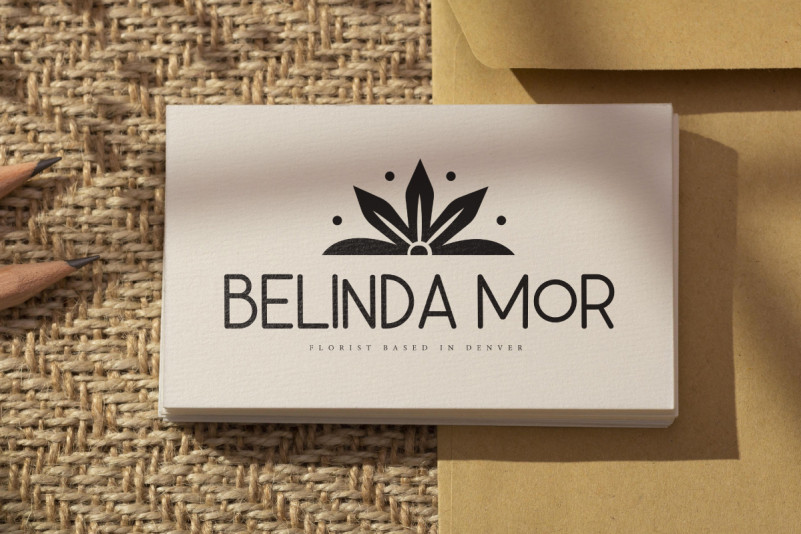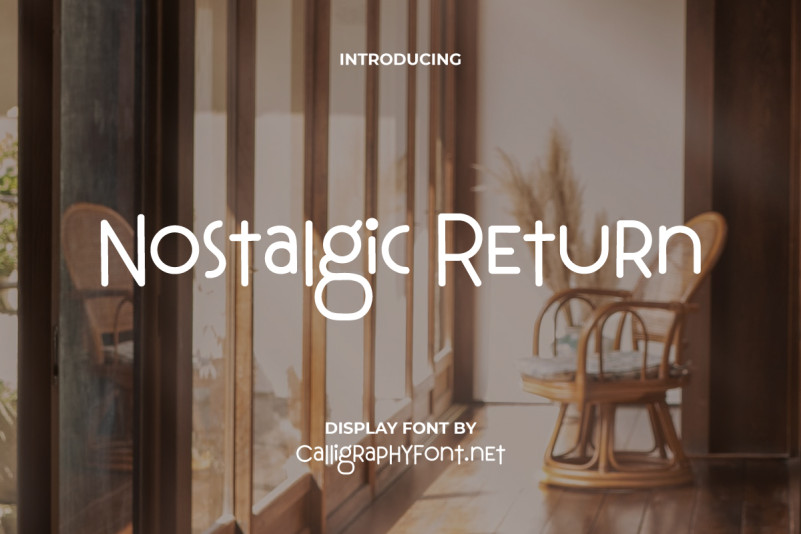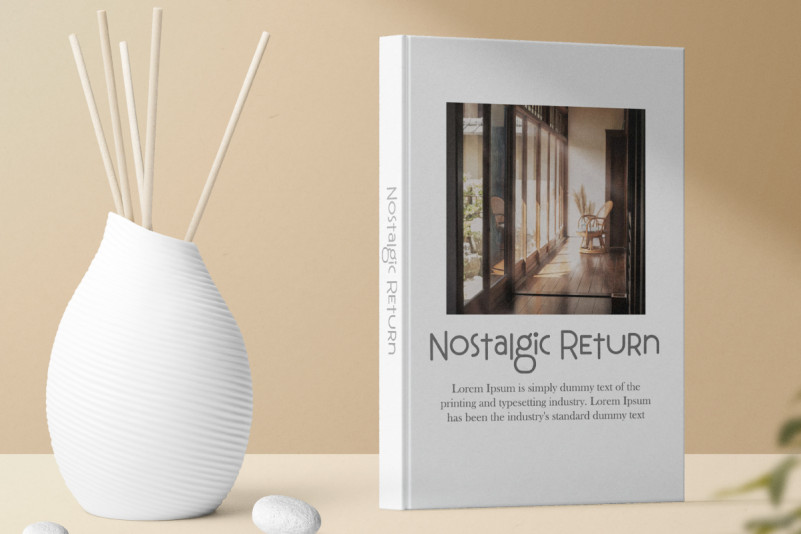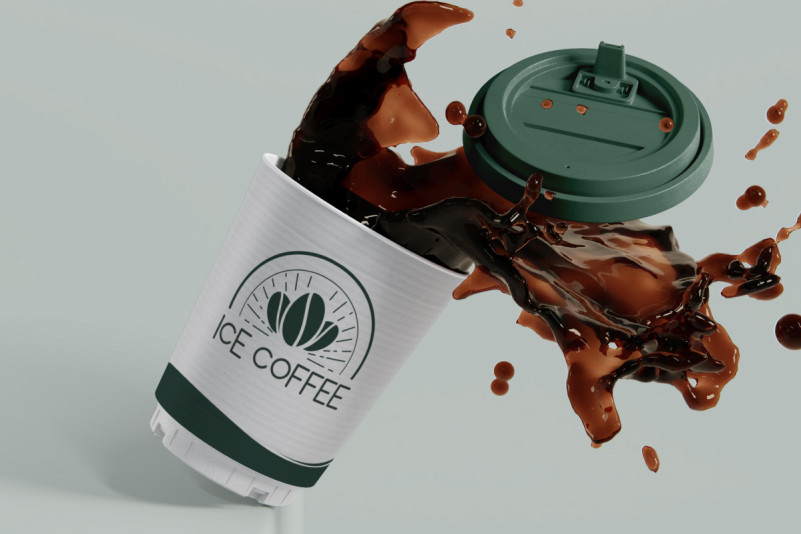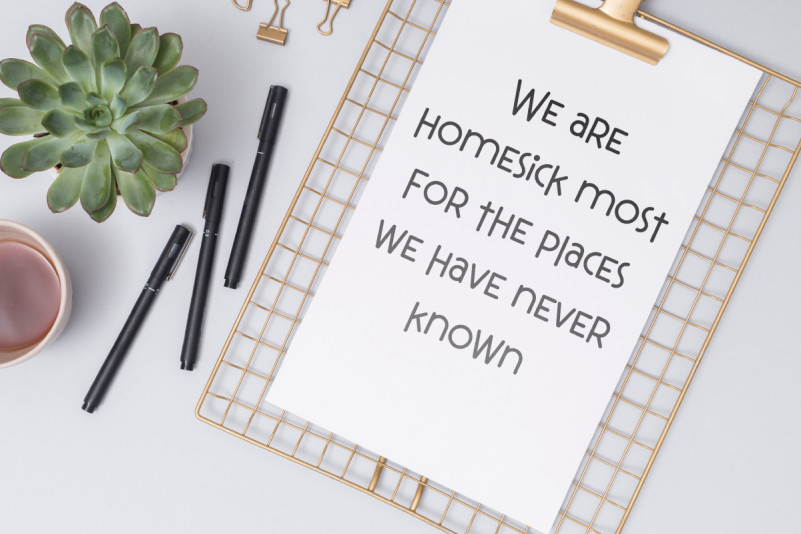
Nostalgic Return Font
Nostalgic Return Display Font is a fun casual display font with a cute style, special created by CalligraphyFonts. It gives an authentic touch that makes users of the font nostalgic, perfect for any creative project, such as : business card, catalog, cover, header, label, product packaging, stationery, website, etc.